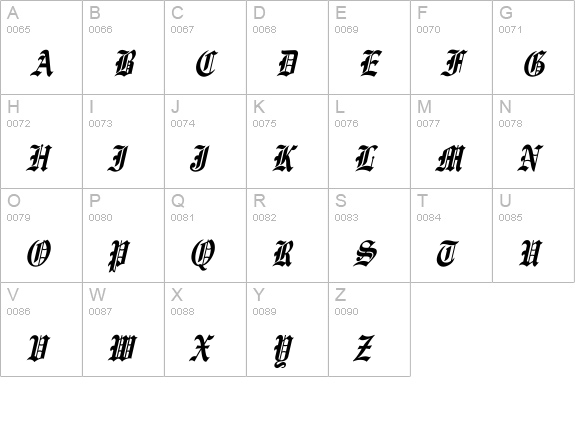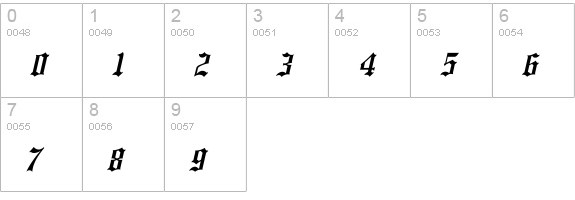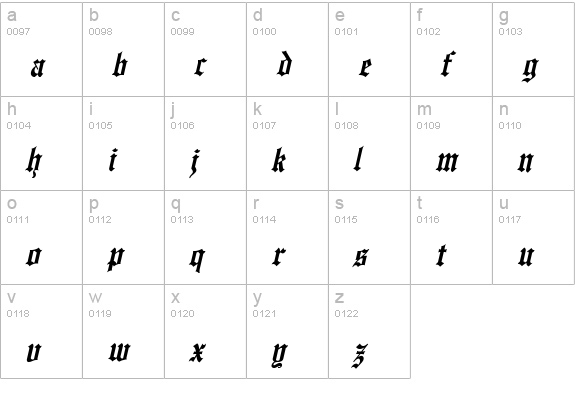
EnglishTowne-Normal Th Italic Font Details
EnglishTowne-Normal Th Italic is the standard, neutral, italic variant in the EnglishTowne typeface family \xE2\x80\x94 well suited to general body text, paragraphs, and standard typographic work.
EnglishTowne-Normal Th Italic is a stunning and elegant font that exudes sophistication and charm. Its sleek and stylish design is perfect for adding a touch of class to any project. With its slanted italic style, this font is ideal for conveying a sense of elegance and refinement. The precise curves and sharp angles of EnglishTowne-Normal Th Italic create a sense of modernity and flair. The best part? EnglishTowne-Normal Th Italic is available for free download at FontsMarket.com. This means you can easily access this beautiful font and use it in your designs without any cost. Whether you're working on a professional project or a personal creative endeavor, EnglishTowne-Normal Th Italic is sure to elevate your work and make a lasting impression. Download it today and add a touch of sophistication to your designs!